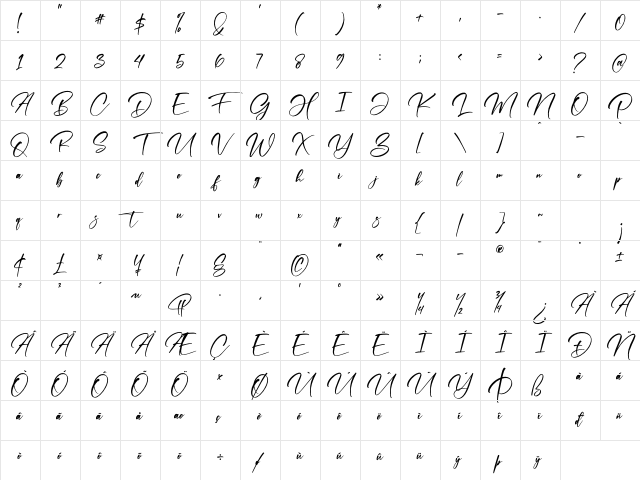
Complete Hayrittius Regular glyph index. Displaying only characters natively supported by Hayrittius Regular font.
Hayrittius is a composed and adaptable typeface that performs quietly and consistently across a wide range of design contexts.